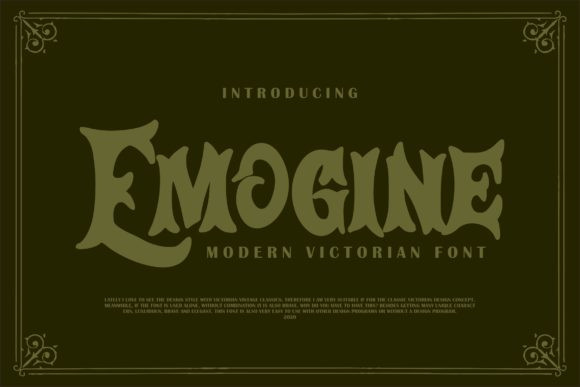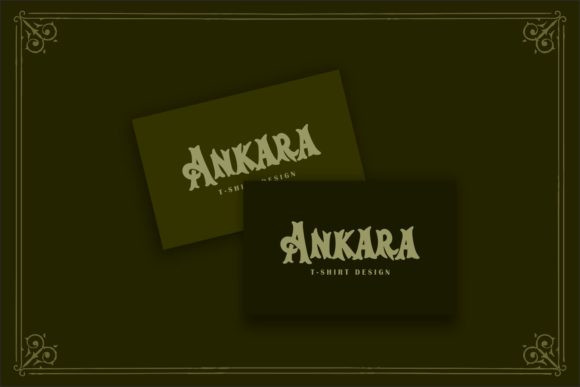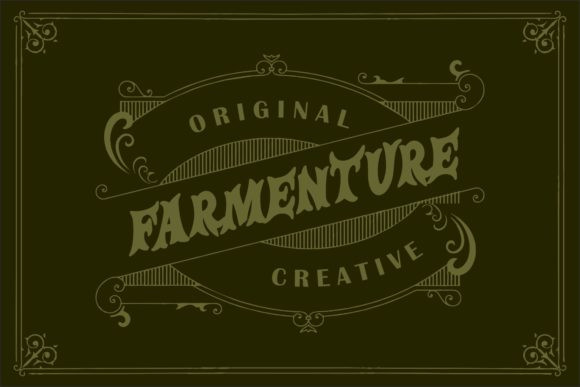
Emogine Font
Emogine is a bold and chunky lettered display font. Masterfully designed to become a true favorite, this font has the potential to bring each of your creative ideas to the highest level!